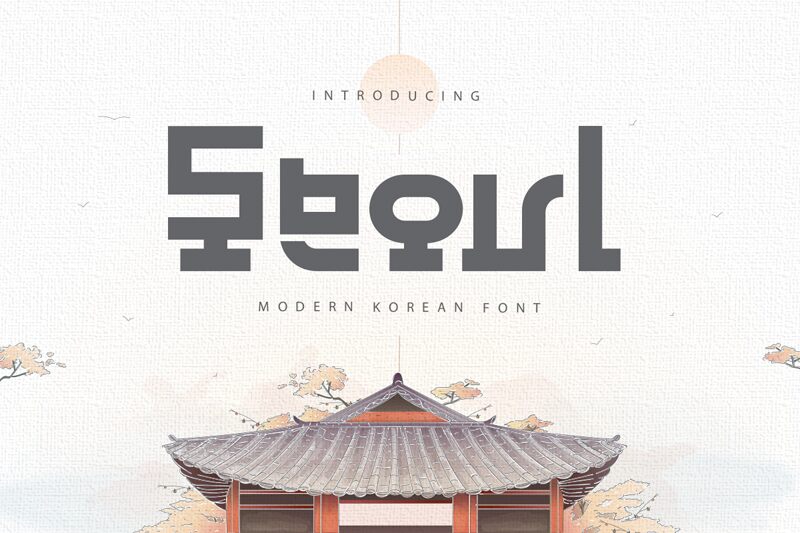
Seoul font by Kong Font is a futuristic free techno display font with a minimalist design and tech-inspired style. Curved and sharp geometric shapes combine to create the well-balanced characters of this typeface, which is both modern and sophisticated. Careful cuts made in some of its letters give Seoul an edgy vibe that can best fit technology-related concepts.
Use this font in logos, branding, websites, UI/UX designs, apps, games cover art, promotional posters or magazines. It’d also do well printed on business cards or exciting placards as long as you maintain proper focus on both readability and appealing aesthetic values.